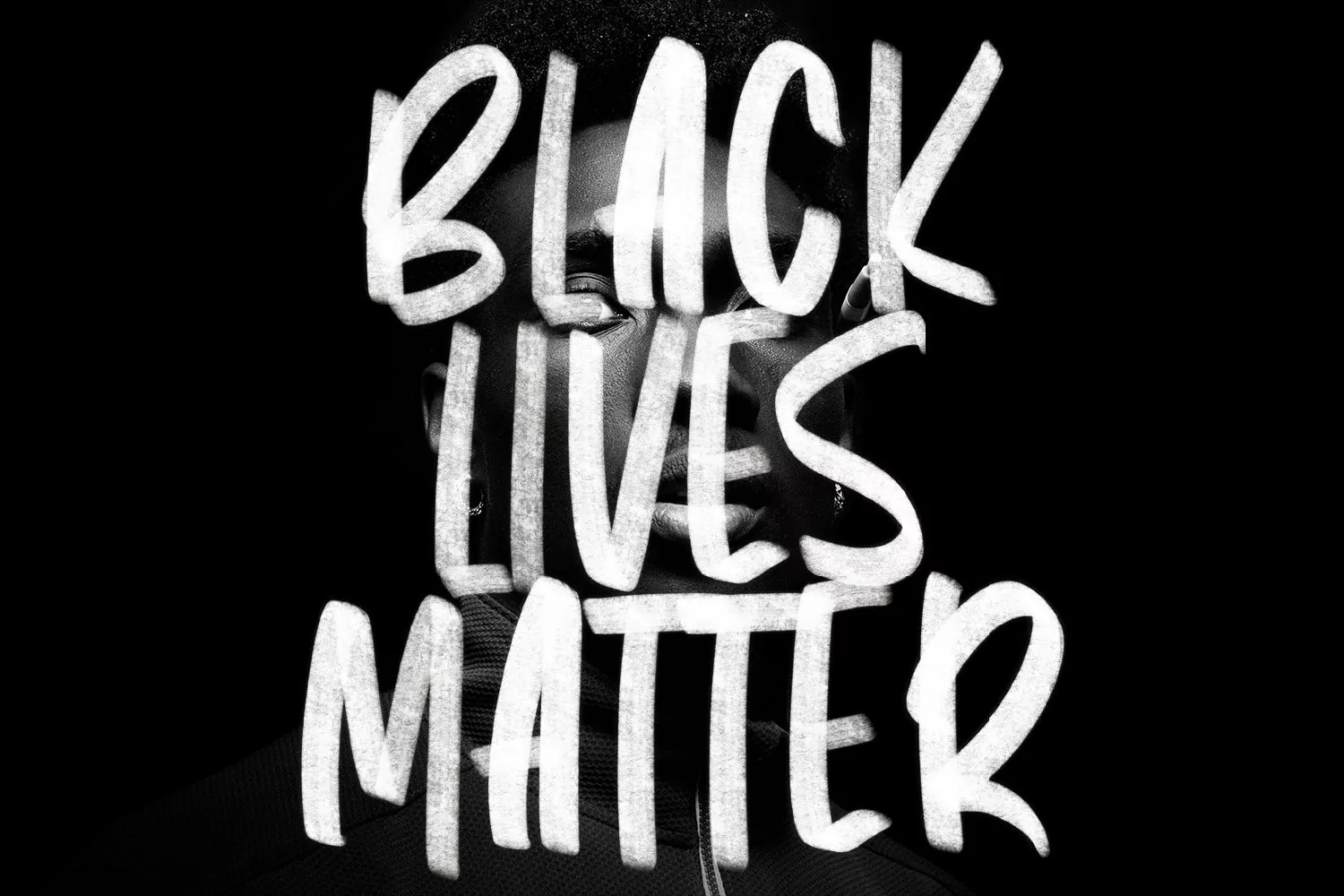
Give your designs an authentic brush handcrafted feel. "Master Puppets" is perfectly suited to signature, stationery, logo, typography quotes, magazine or book cover, website header, flyer, clothing, branding, packaging design and more.